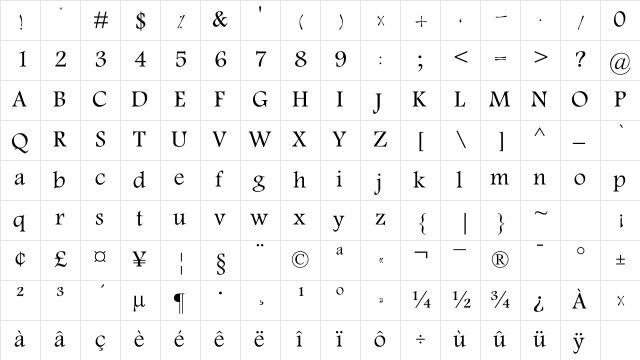
Design Context for Motken K Tabassom Typeface
Motken K Tabassom is a composed and adaptable typeface that performs quietly and consistently across a wide range of design contexts.
Pro Tip: Pair Motken K Tabassom with a font of contrasting weight or personality to build a more expressive typographic hierarchy.